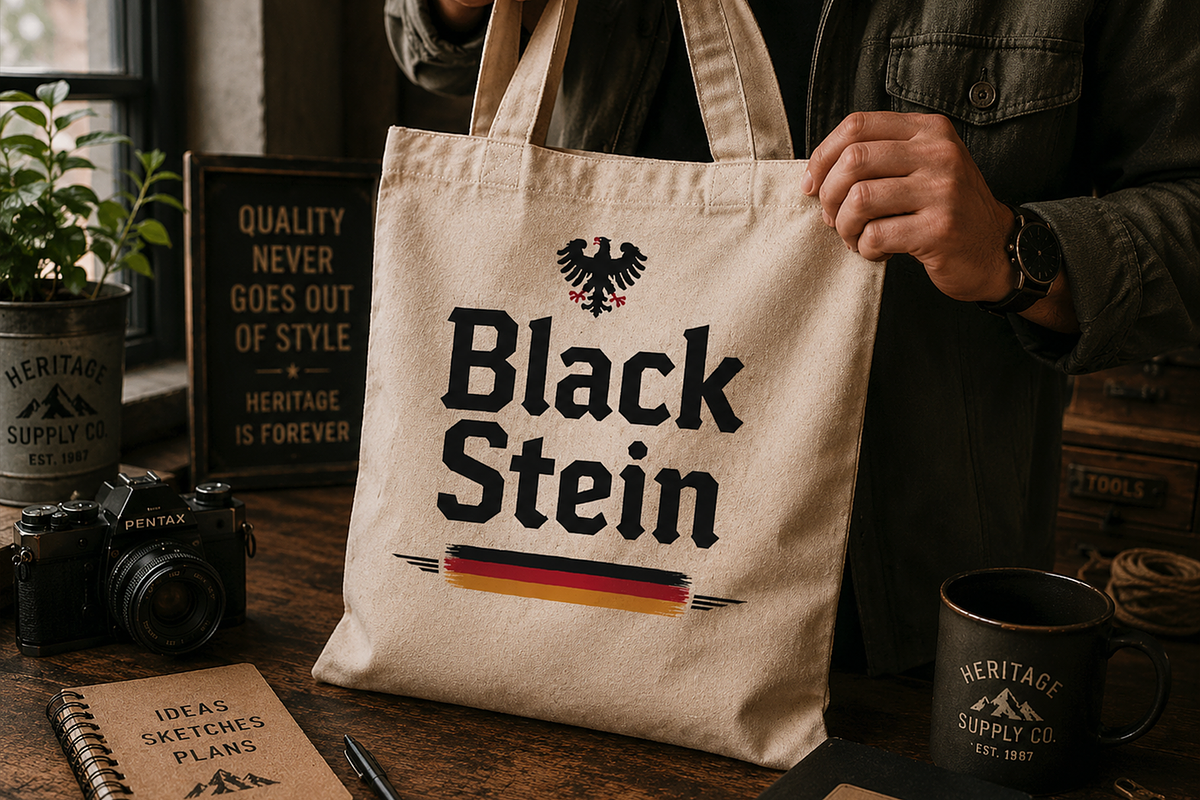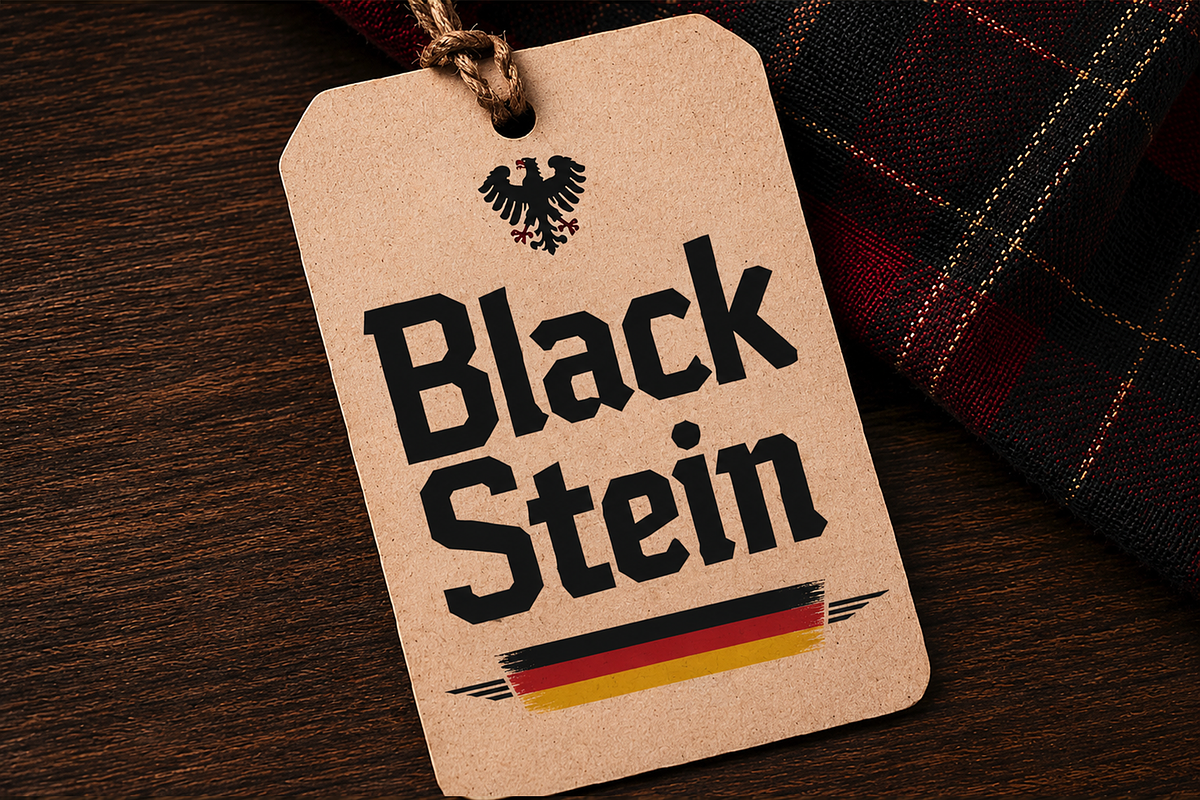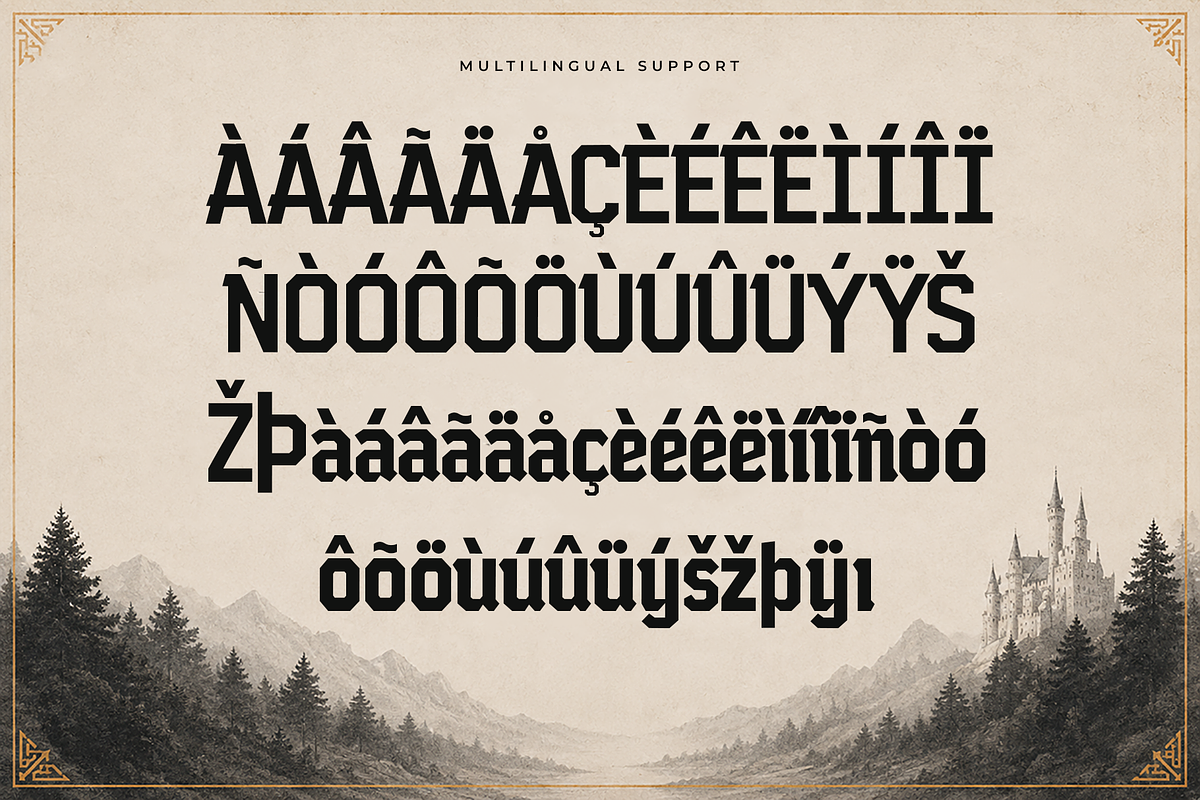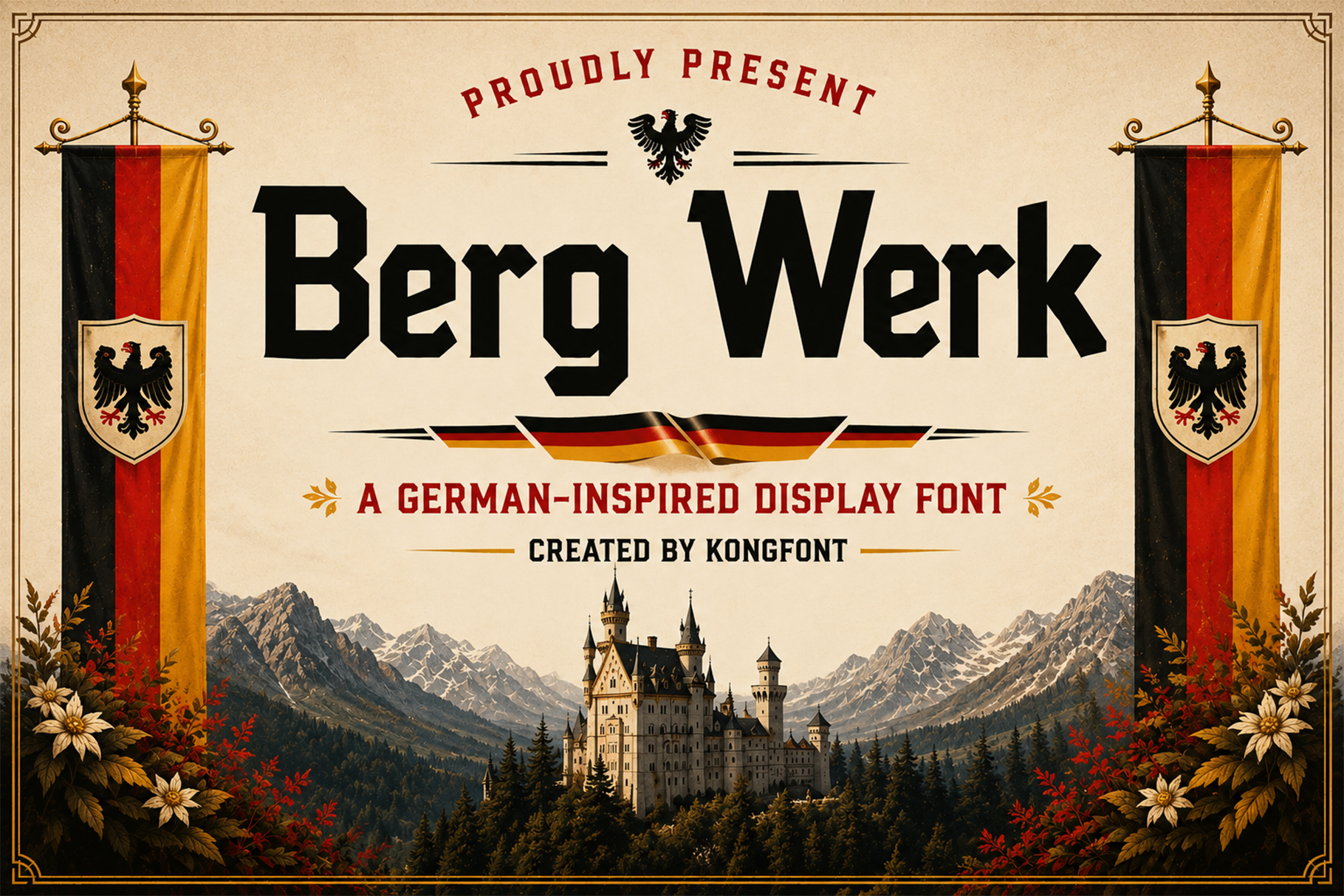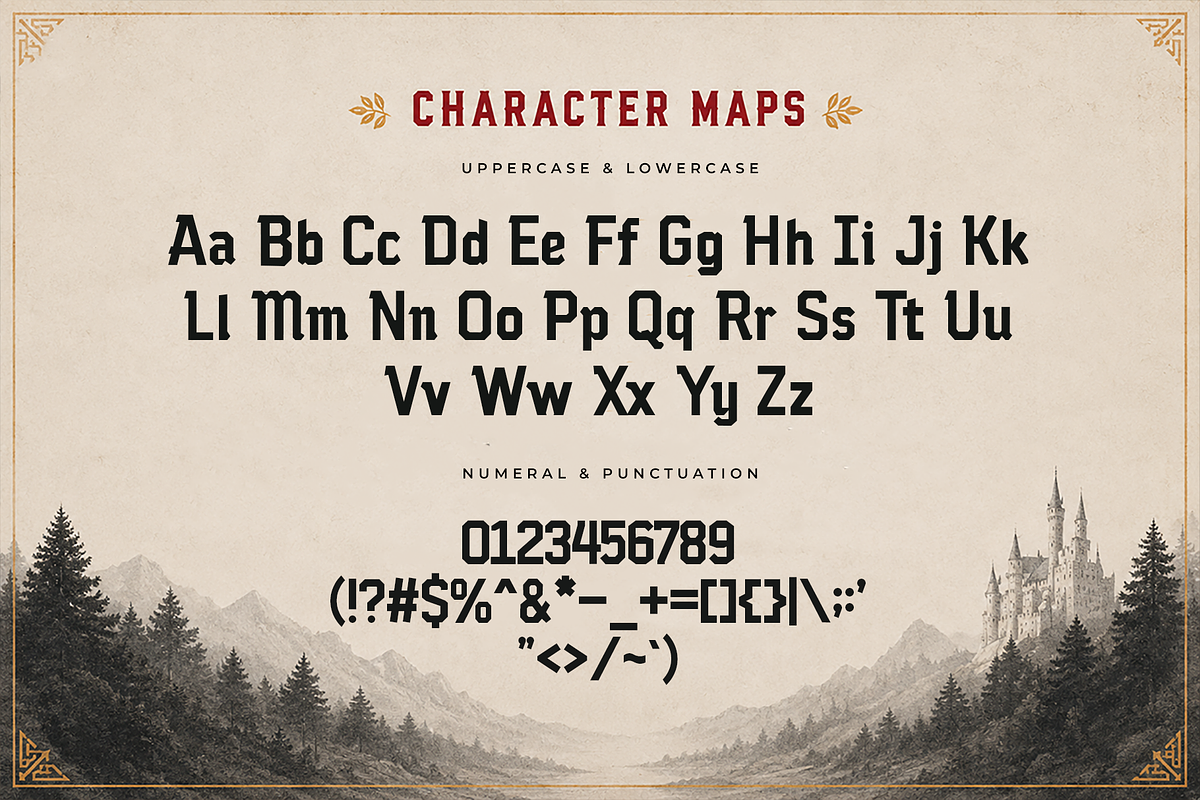
Berg Werk - German Display Font
Meet Berg Werk, a German inspired display font that combines bold geometric forms with the timeless character of traditional European typography. Inspired by Germany's rich industrial heritage, alpine landscapes, and historic craftsmanship, this typeface features strong angular letterforms and a confident presence that instantly commands attention. Its clean yet powerful design makes it an excellent choice for projects that require a bold and authentic visual identity.
Whether you're designing a rustic brewery logo, crafting authentic product packaging, creating festival promotions, or developing branding inspired by German culture, Berg Werk delivers strength, tradition, and professionalism in every character. Complete with uppercase and lowercase letters, numerals, punctuation, multilingual support, and carefully crafted glyphs, this typeface provides designers with the versatility to create bold and unforgettable visual experiences.